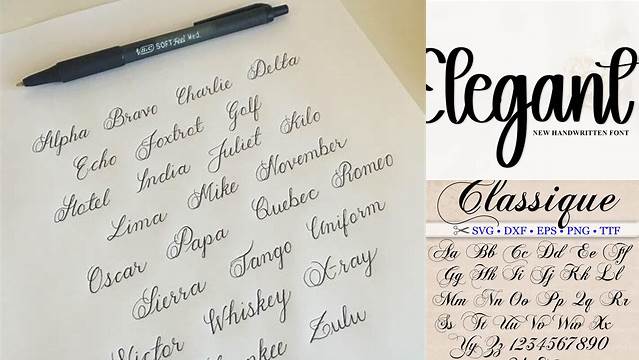
Elegant Cursive Fonts: Perfect For Handwriting Styles
Understanding Cursive Fonts
Cursive fonts, also known as script fonts, are designed to mimic the flowing strokes of human handwriting. Unlike block letters, where each letter is separate, cursive letters connect, creating a seamless and elegant appearance. The beauty of cursive lies in its ability to convey a sense of sophistication and personalization, making it a popular choice for invitations, logos, and artistic designs. When you think of cursive fonts handwriting, imagine the graceful loops and swirls that define this unique style. There are various types of cursive fonts, each with its own distinct character. Some are formal and traditional, reminiscent of classic calligraphy, while others are more modern and playful, reflecting contemporary handwriting styles. Understanding the nuances of these different types is key to choosing the right font for your specific needs. For instance, a formal script like 'Brush Script MT' might be perfect for wedding invitations, while a more casual script like 'Pacifico' could be ideal for a blog header. Exploring different cursive fonts handwriting will not only broaden your design palette but also help you appreciate the artistry behind each stroke. So, let's get started and uncover the secrets of these beautiful fonts!
The History of Cursive Handwriting
The history of cursive fonts handwriting is a fascinating journey through time, tracing back to the practical needs of scribes and the artistic expressions of calligraphers. In ancient times, when writing materials were scarce and laborious to produce, cursive emerged as a faster and more efficient way to record information. Unlike earlier scripts that required lifting the pen after each stroke, cursive allowed writers to connect letters, saving time and effort. This efficiency made cursive the go-to script for everything from legal documents to personal correspondence. As writing technology evolved, so did cursive. Different styles and variations emerged in different regions, reflecting local cultures and aesthetic preferences. For example, the elegant and flowing scripts of Renaissance Italy became highly influential, inspiring the development of modern cursive fonts. Today, even with the prevalence of digital communication, cursive continues to hold a special place in our hearts and minds. The act of writing in cursive is seen as a personal and expressive art form, connecting us to the traditions of the past. So, the next time you admire a beautiful cursive font, remember the rich history and cultural significance behind each graceful stroke. The journey of cursive fonts handwriting is a testament to the enduring power of human creativity and the timeless appeal of handwritten expression.
Choosing the Right Cursive Font
Choosing the right cursive fonts handwriting is essential to ensure that your message is conveyed effectively and aesthetically. Not all cursive fonts are created equal, and the font you select can significantly impact the overall look and feel of your design. Consider the context in which the font will be used. A formal invitation, for example, may call for an elegant and traditional script, while a casual blog post might benefit from a more relaxed and playful cursive. Think about the readability of the font. While some cursive fonts are beautifully ornate, they can be difficult to read, especially in smaller sizes. Always prioritize clarity and legibility to ensure that your audience can easily understand your message. Pay attention to the details of the font, such as the thickness of the strokes, the size of the loops, and the overall balance of the design. These subtle elements can make a big difference in the overall impact of the font. Experiment with different fonts and see how they look in different contexts. Try pairing cursive fonts with other font styles to create a visually appealing contrast. With careful consideration and a bit of experimentation, you can find the perfect cursive fonts handwriting to enhance your design and capture the attention of your audience. Remember, the right font can transform an ordinary design into something truly special!
Cursive Fonts for Invitations
When it comes to invitations, cursive fonts handwriting can add a touch of elegance and sophistication that sets the tone for a special event. Whether you're planning a wedding, a birthday party, or a formal gala, the right cursive font can make your invitations stand out and leave a lasting impression on your guests. Opt for classic and formal scripts for traditional events. Fonts like 'Brush Script MT' or 'Edwardian Script ITC' exude timeless elegance and are perfect for conveying a sense of refinement and grace. Consider the overall theme of your event. A rustic wedding might call for a more casual and organic cursive font, while a modern cocktail party could benefit from a sleek and contemporary script. Pay attention to the readability of the font. While ornate cursive fonts can be visually stunning, they may be difficult to read, especially in smaller sizes. Ensure that your guests can easily decipher the important details of your event, such as the date, time, and location. Experiment with different font pairings to create a visually appealing contrast. Combine a cursive font with a simple sans-serif font for a balanced and harmonious design. With careful consideration and a bit of creativity, you can choose the perfect cursive fonts handwriting to elevate your invitations and make your event truly memorable. Remember, your invitations are the first glimpse that your guests will have of your event, so make them count!
Using Cursive Fonts in Logos
Using cursive fonts handwriting in logos can create a sense of personality and sophistication, making your brand stand out from the competition. A well-chosen cursive font can convey a feeling of elegance, creativity, or trustworthiness, depending on the specific style you select. When designing a logo with a cursive font, consider your target audience and the message you want to communicate. A luxury brand might opt for a classic and refined script, while a creative agency could choose a more playful and modern cursive. Ensure that the font is legible and scalable. Your logo will need to look good in a variety of sizes, from business cards to billboards, so choose a font that remains clear and readable even when it's scaled up or down. Pay attention to the kerning and spacing of the letters. Cursive fonts often require careful adjustments to ensure that the letters flow smoothly and naturally. Work with a professional designer to fine-tune the details of your logo and ensure that it looks polished and professional. Consider using a cursive fonts handwriting in combination with other font styles to create a visually appealing contrast. Pairing a script font with a simple sans-serif font can add balance and visual interest to your logo. With careful planning and attention to detail, you can create a logo that effectively represents your brand and captures the attention of your audience. A well-designed logo is a valuable asset that can help you build brand recognition and establish a strong presence in the marketplace.
Modern Cursive Font Trends
The world of cursive fonts handwriting is constantly evolving, with new trends and styles emerging all the time. Keeping up with these trends can help you stay ahead of the curve and create designs that are fresh, modern, and visually appealing. One popular trend is the use of brush script fonts, which mimic the look of hand-painted lettering. These fonts have a natural, organic feel and are perfect for adding a touch of warmth and personality to your designs. Another trend is the use of monoline cursive fonts, which feature strokes of uniform thickness. These fonts have a clean, minimalist look and are ideal for modern and contemporary designs. The use of vintage-inspired cursive fonts is also on the rise. These fonts evoke a sense of nostalgia and are perfect for adding a retro touch to your projects. Experiment with different font pairings to create unique and visually interesting designs. Combine a modern cursive font with a classic serif font for a balanced and harmonious look. With a little creativity and experimentation, you can create designs that are both on-trend and timeless. Stay inspired by following design blogs, attending workshops, and exploring the work of other designers. The key to success is to keep learning and experimenting with new ideas. By staying informed and open to new possibilities, you can create designs that are truly original and innovative. Modern cursive fonts handwriting offer a wide range of options for expressing your creativity and capturing the attention of your audience.
Free Cursive Fonts Online
Finding high-quality cursive fonts handwriting online doesn't have to break the bank. There are plenty of resources offering free cursive fonts that you can use for your personal and commercial projects. Websites like Google Fonts, Font Squirrel, and DaFont offer a wide selection of free cursive fonts, ranging from classic scripts to modern brush styles. When downloading free fonts, be sure to check the license agreement to ensure that you're allowed to use the font for your intended purpose. Some fonts may only be free for personal use, while others may be licensed for commercial use as well. Pay attention to the quality of the font. Not all free fonts are created equal, and some may be poorly designed or lack essential features like kerning and ligatures. Look for fonts that have been professionally designed and tested to ensure that they look good in a variety of contexts. Experiment with different fonts and see how they look in your designs. Don't be afraid to mix and match different fonts to create a unique and visually appealing look. With a little searching and experimentation, you can find plenty of free cursive fonts handwriting to enhance your projects and bring your creative visions to life. Remember, the best font is the one that best suits your needs and helps you communicate your message effectively.
Cursive Fonts for Tattoos
Cursive fonts handwriting are a popular choice for tattoos, offering a way to express meaningful words or phrases in an elegant and personal style. When choosing a cursive font for a tattoo, consider the size and placement of the design. Smaller tattoos may require simpler fonts with clear and legible strokes, while larger tattoos can accommodate more ornate and intricate designs. Think about the overall aesthetic you want to achieve. A delicate and flowing script can create a feminine and graceful look, while a bolder and more stylized cursive can convey a sense of strength and confidence. Ensure that the font is legible and will remain so over time. Tattoos can fade and blur as they age, so it's important to choose a font that will hold its shape and clarity. Work with a professional tattoo artist to ensure that the design is properly sized and placed on your body. A skilled artist can help you choose the right font and make any necessary adjustments to ensure that the tattoo looks its best. Consider the meaning and symbolism of the words or phrases you choose. A tattoo is a permanent expression of your identity and beliefs, so choose words that resonate with you on a deep and personal level. With careful planning and attention to detail, you can create a beautiful and meaningful tattoo using cursive fonts handwriting that you'll cherish for a lifetime.
Pairing Cursive Fonts with Other Styles
Pairing cursive fonts handwriting with other font styles can create visually appealing and balanced designs. The key is to find fonts that complement each other and create a harmonious contrast. One popular approach is to pair a cursive font with a simple sans-serif font. The clean lines of the sans-serif font can provide a counterpoint to the flowing curves of the cursive font, creating a sense of balance and visual interest. Another option is to pair a cursive font with a classic serif font. The serif font can add a touch of formality and sophistication to the design, while the cursive font can add a personal and expressive touch. Experiment with different font sizes and weights to create a visual hierarchy and draw attention to key elements of your design. Use the cursive font for headings or titles, and the other font for body text or supporting information. Pay attention to the spacing and kerning of the fonts to ensure that they work well together. Adjust the spacing between letters and words to create a sense of balance and readability. With careful experimentation and attention to detail, you can create designs that are both visually appealing and effective at communicating your message. Pairing cursive fonts handwriting with other styles opens up a world of creative possibilities and allows you to create designs that are truly unique and memorable.
The Enduring Appeal of Cursive Fonts
Despite the rise of digital fonts and modern typography, cursive fonts handwriting continue to captivate and charm us. Their flowing lines and elegant curves evoke a sense of nostalgia, tradition, and personal touch. Cursive fonts remind us of handwritten letters, personalized invitations, and the artistry of calligraphy. They add a human element to our designs, making them feel more authentic and relatable. Cursive fonts are often associated with sophistication, creativity, and romance. They are a popular choice for wedding invitations, branding materials, and designs that aim to convey a sense of luxury and elegance. In a world of mass-produced products and digital communications, cursive fonts offer a unique way to stand out and make a statement. They add a personal touch that sets your designs apart from the crowd. The enduring appeal of cursive fonts lies in their ability to connect us to the past while remaining relevant in the present. They are a timeless design element that will continue to inspire and delight us for generations to come. Whether you're designing a logo, creating an invitation, or simply writing a personal note, cursive fonts handwriting can help you express your creativity and connect with your audience in a meaningful way. Their beauty and elegance will continue to captivate us for years to come.